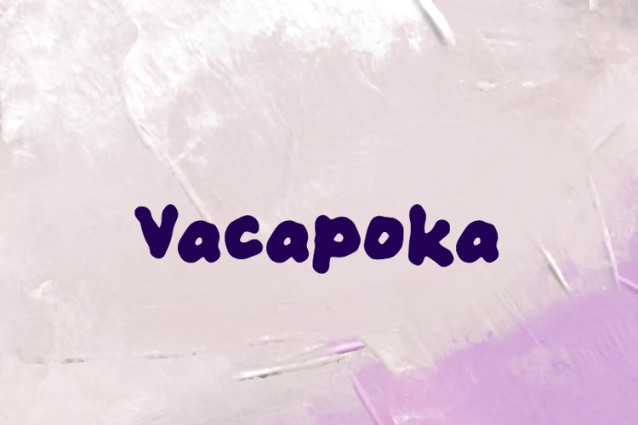
Vacapoka Font
Vacapoka Font is a chunky, comic, and cartoon display font. With its neat and joyful personality, this font will enhance any project you wish to create!